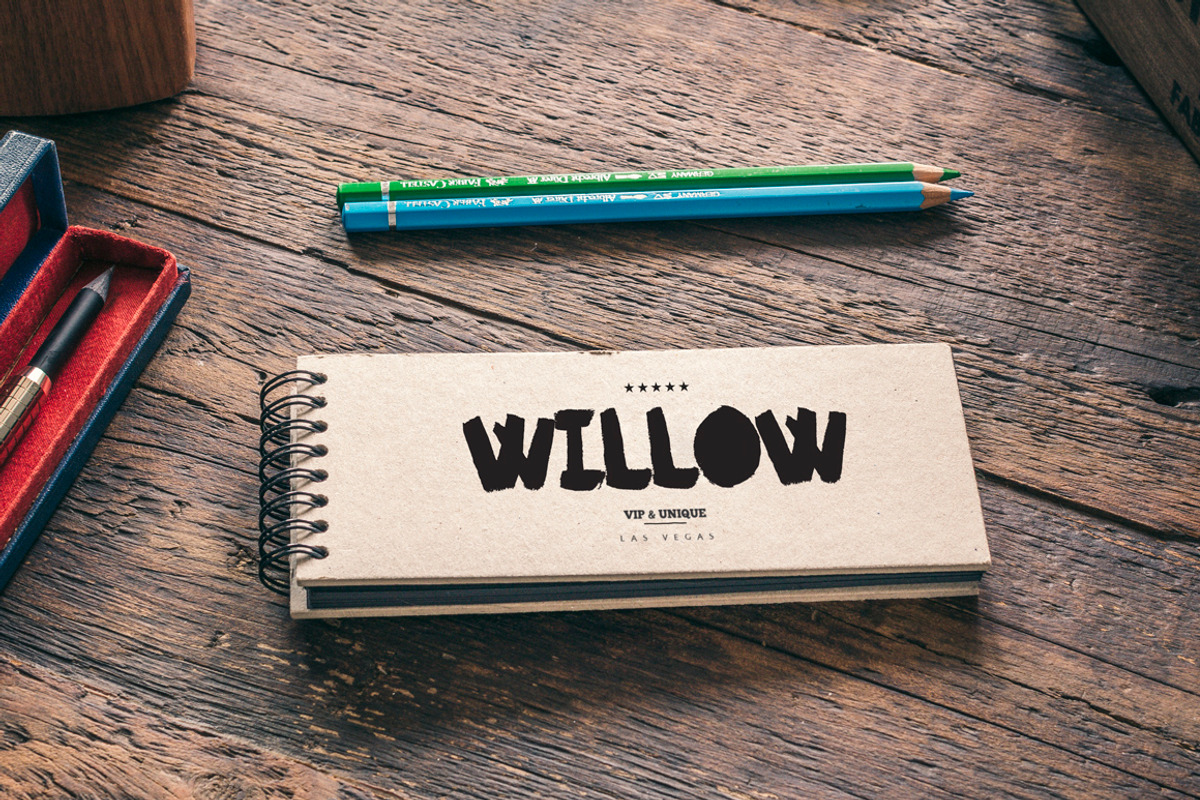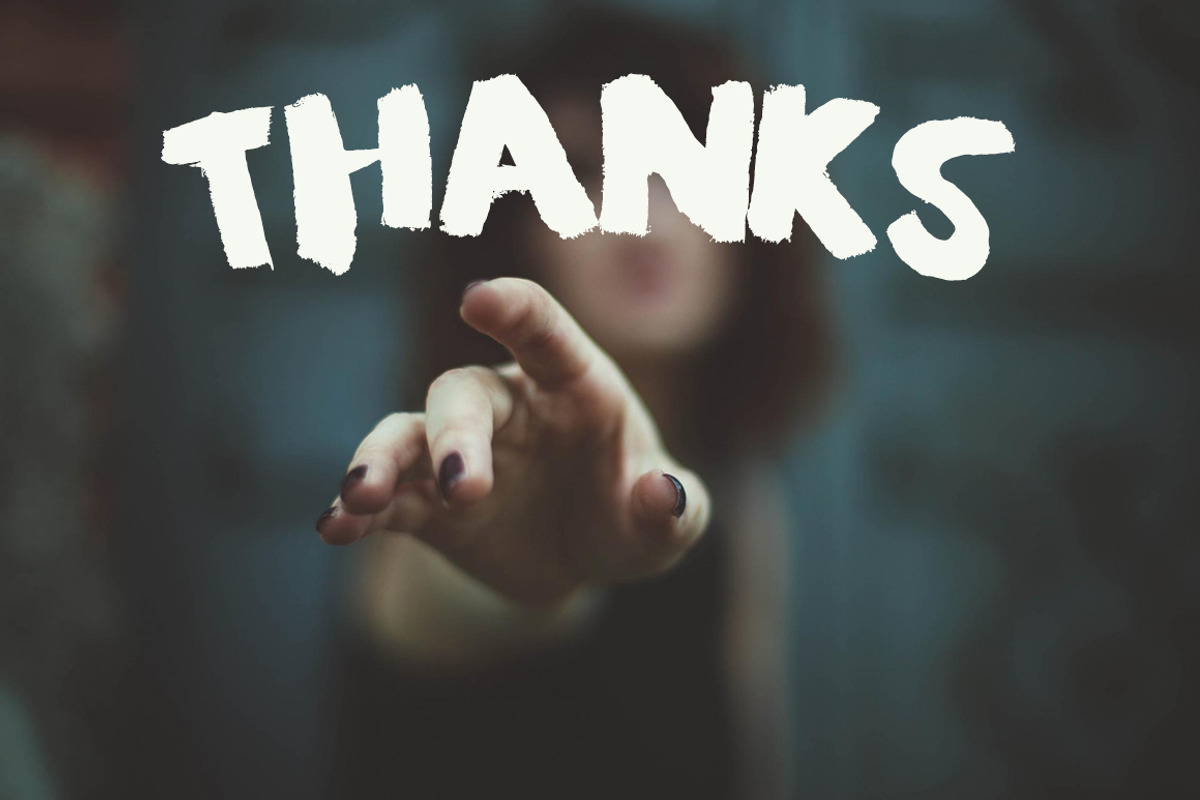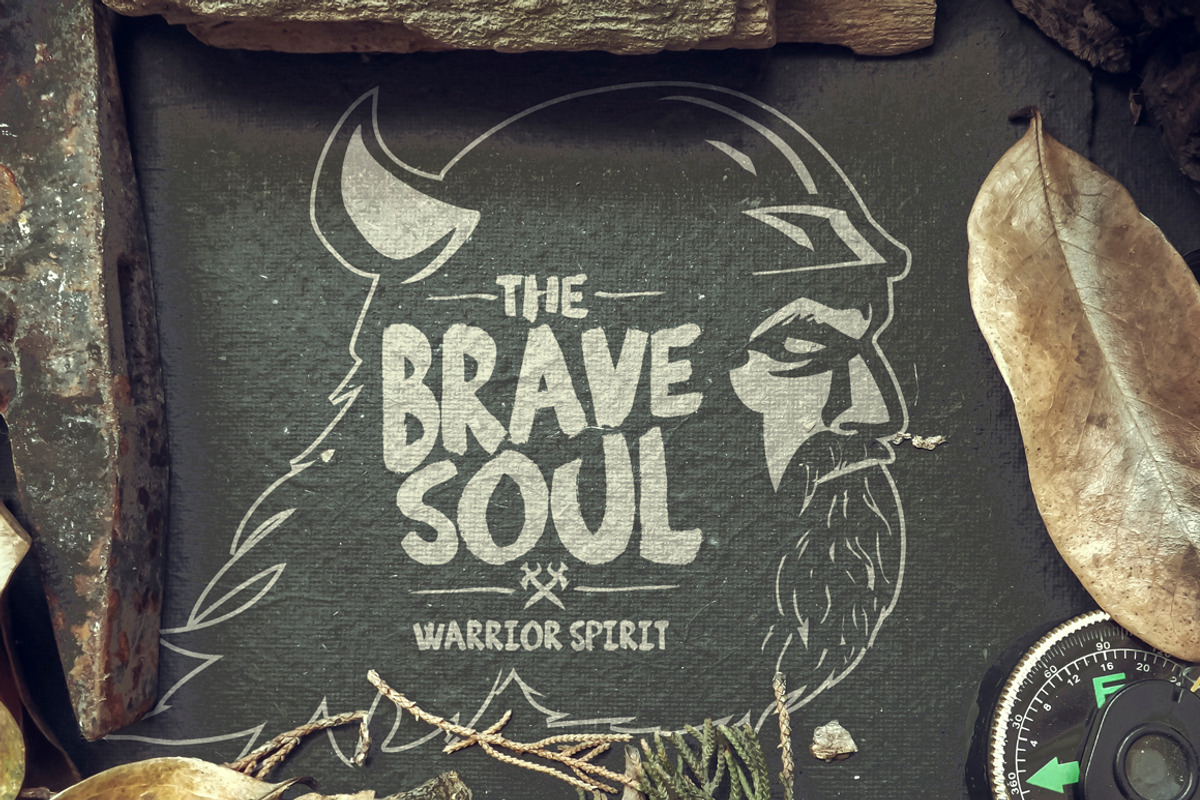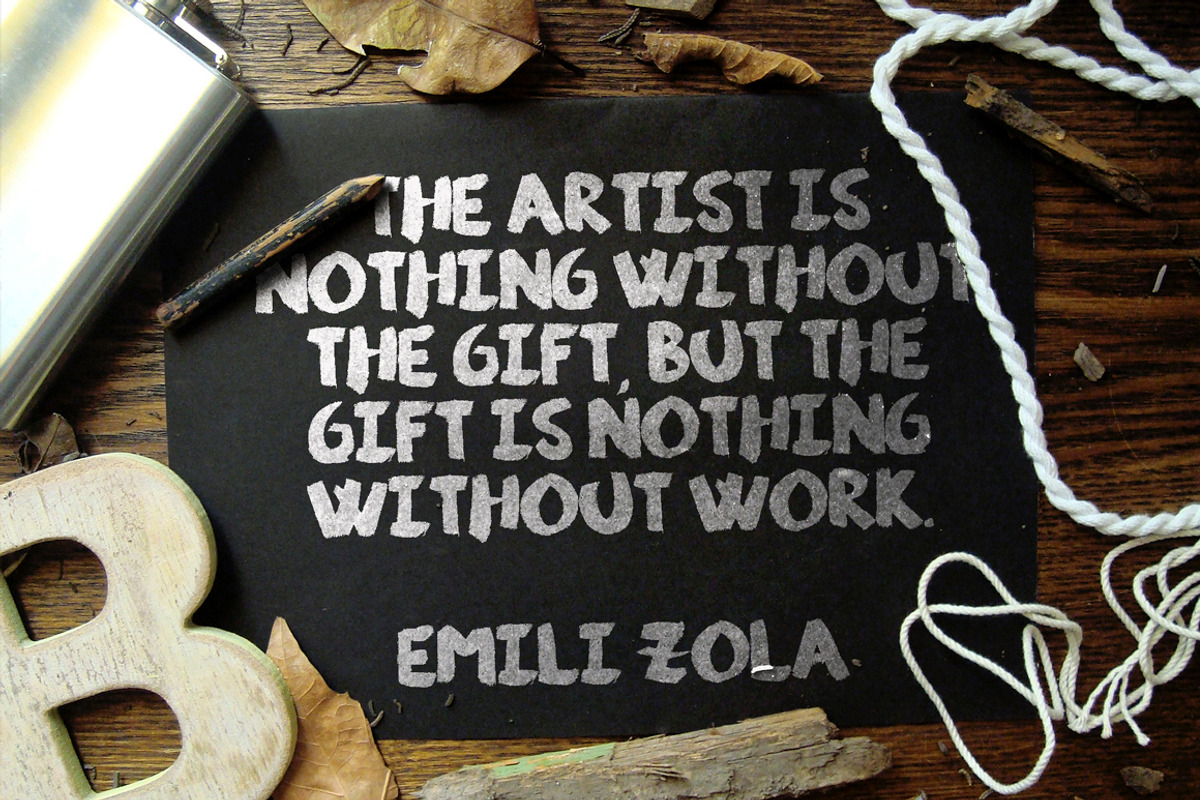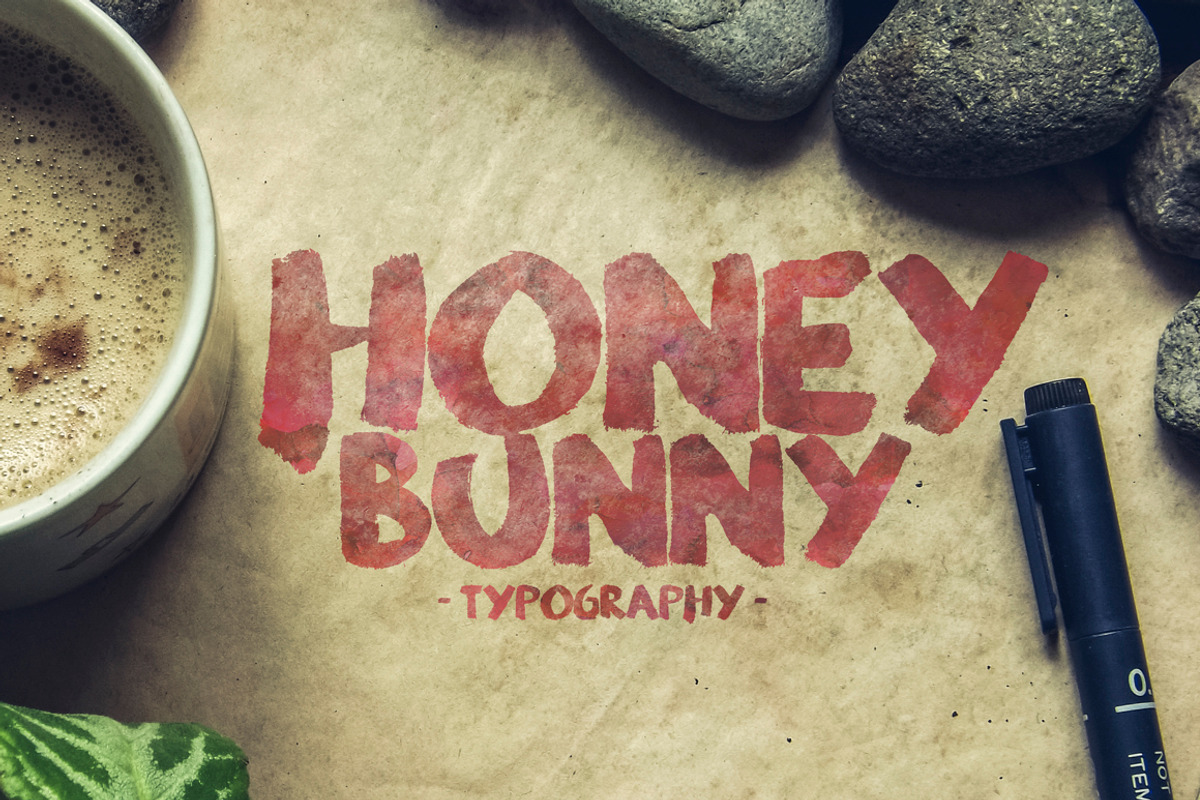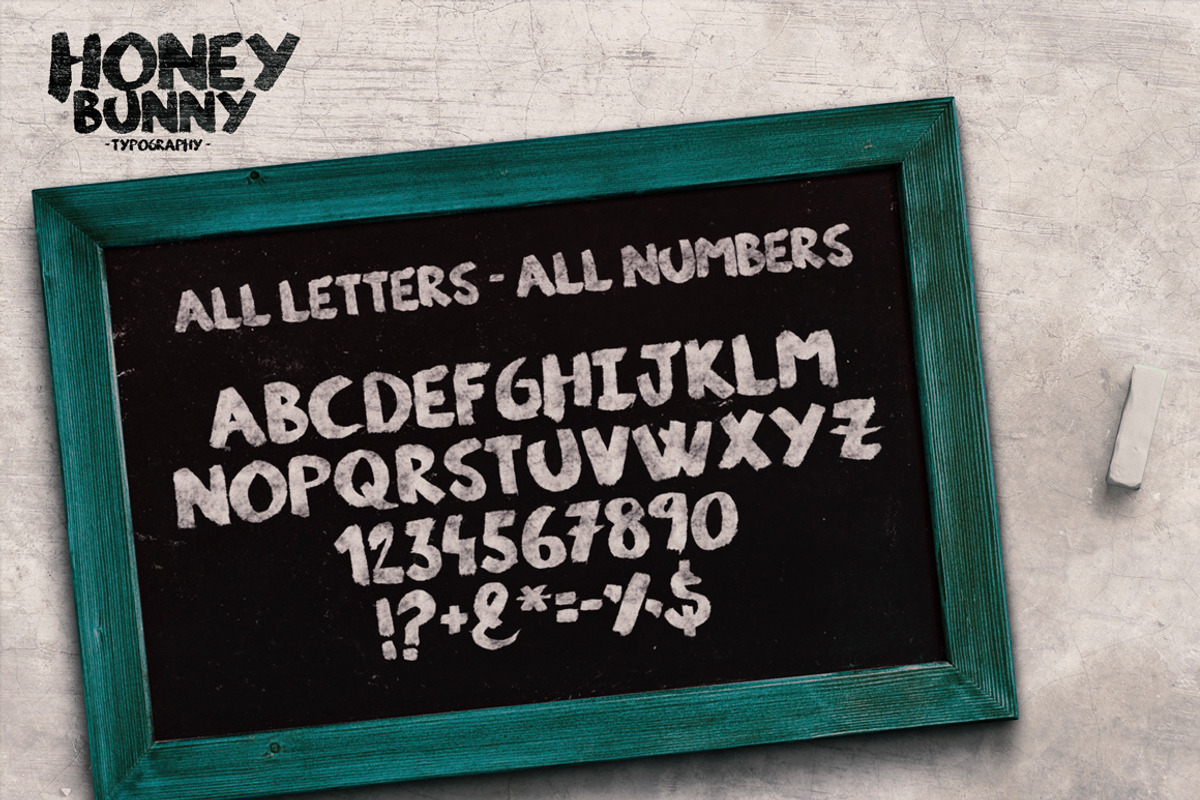
Honey Bunny Script Typeface
Honey Bunny Script Typeface by SmartDesigns is a font selected for branding, posters, packaging, typography.
Why Honey Bunny Script Typeface is worth a look
Honey Bunny Script Typeface by SmartDesigns fits naturally into Branding, posters, packaging, typography.